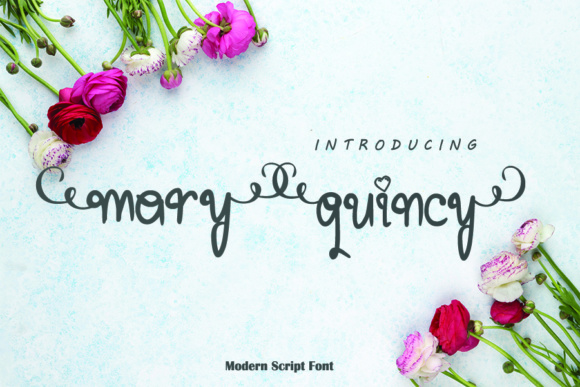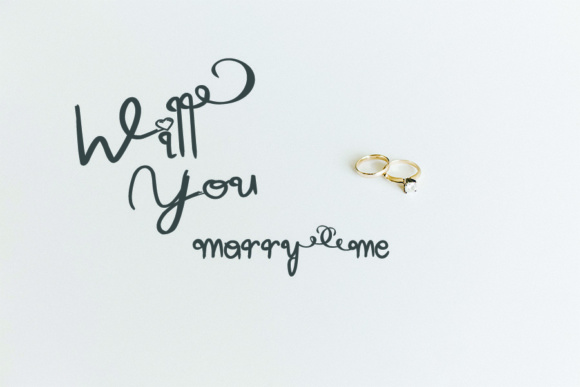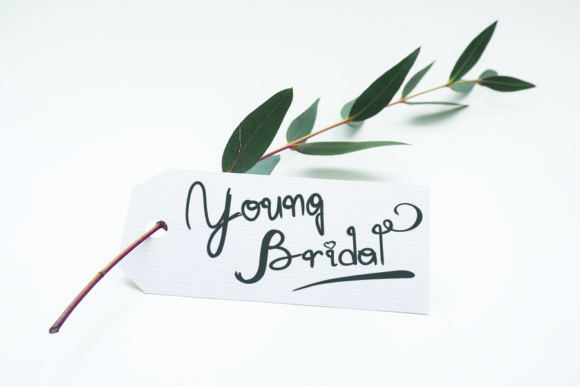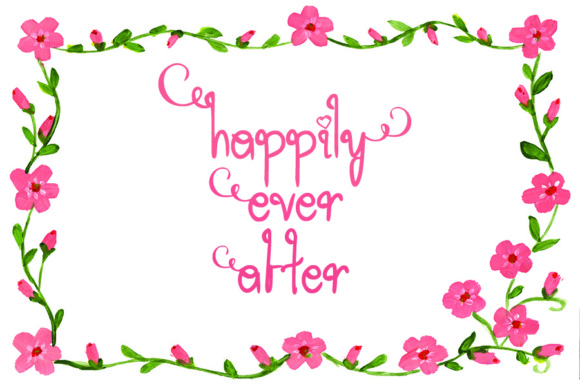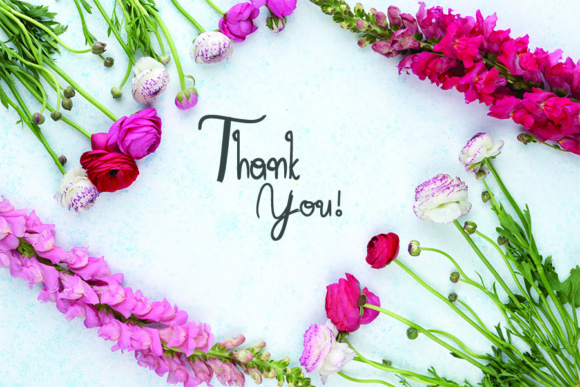
Mary Quincy Font
About Mary Quincy Font
Mary Quincy is a fun and super cutesy handwritten font, ideal for use in romantic and feminine project types. This font has a very curly look to it, and can add a ton of texture and sass that will add tons of charm to your work.